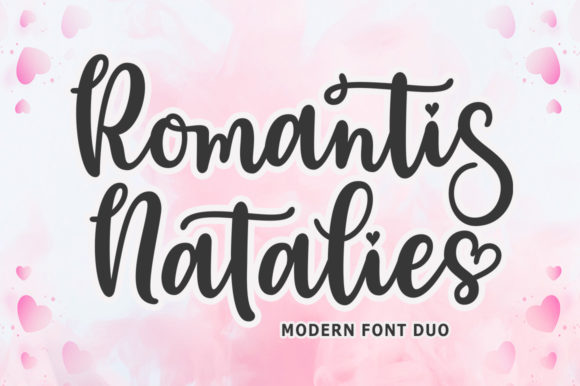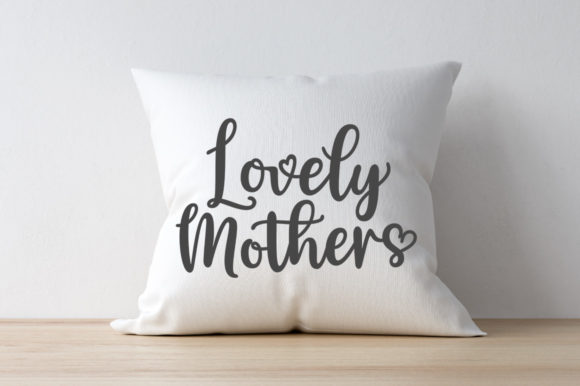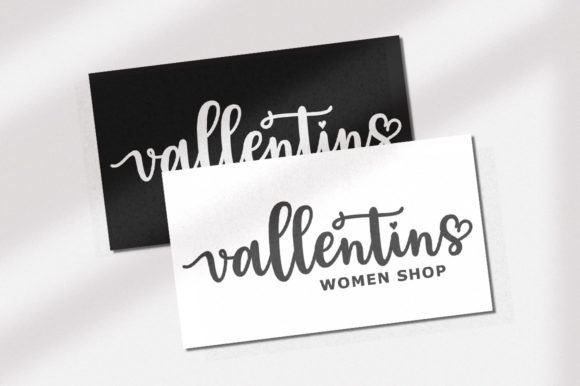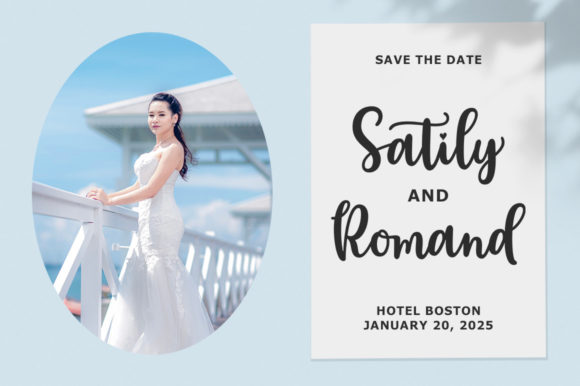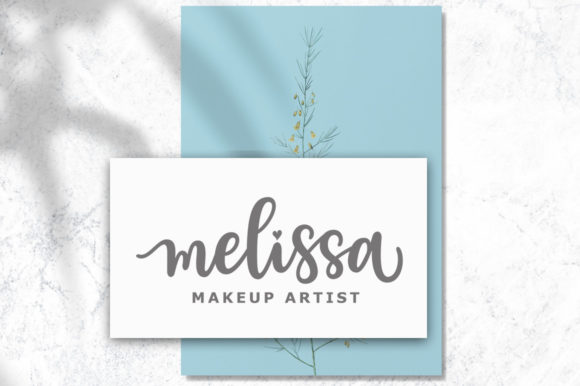
Romantis Natalies Font
Romantis Natalies is a modern duo font (script and sans serif). It has beautiful and well balanced characters and as a result, it matches a wide pool of designs. This font is PUA encoded which means you can access all of the glyphs and swashes with ease!